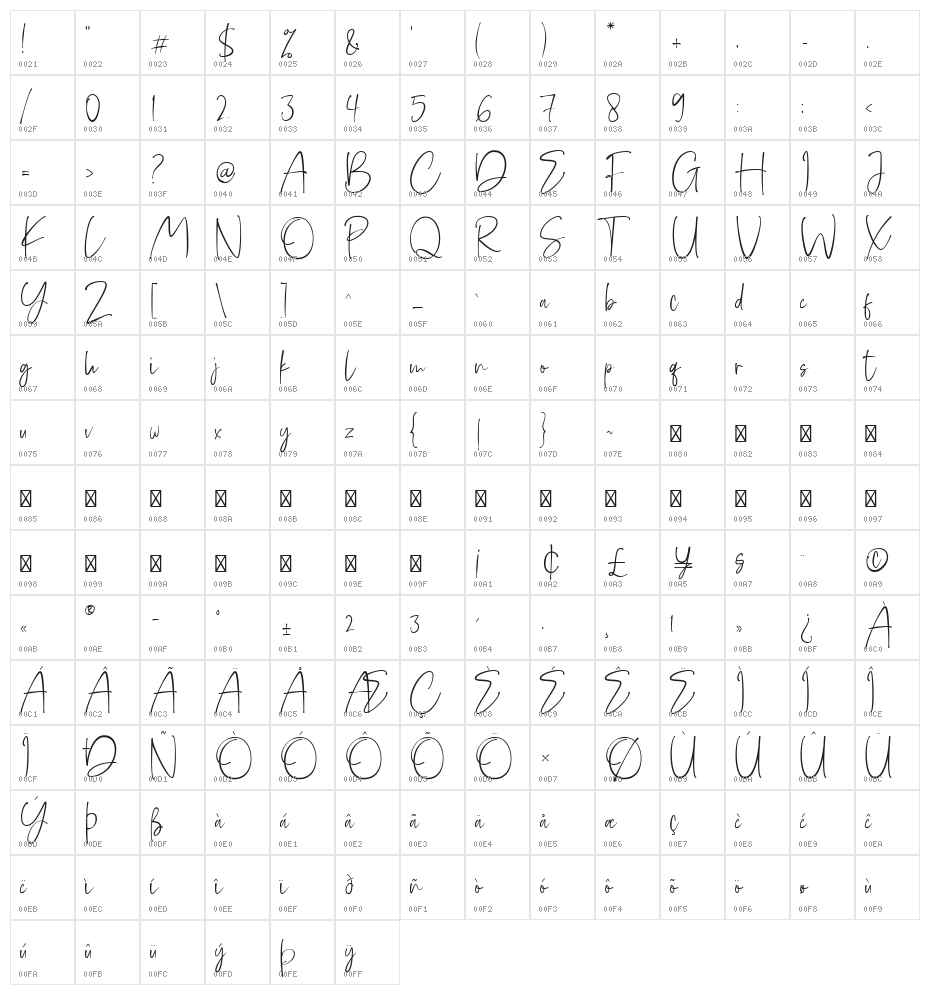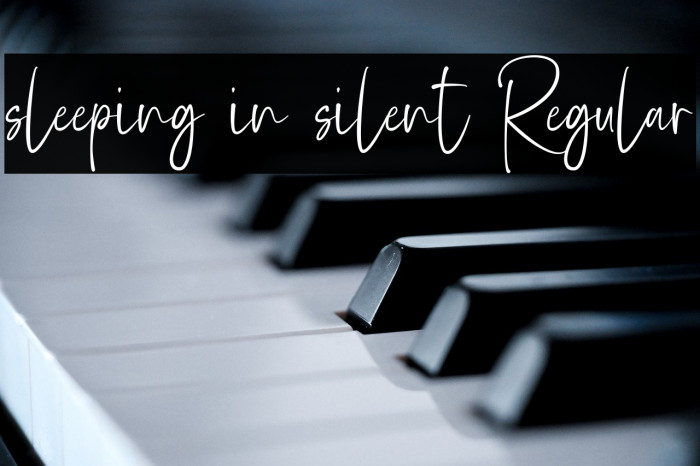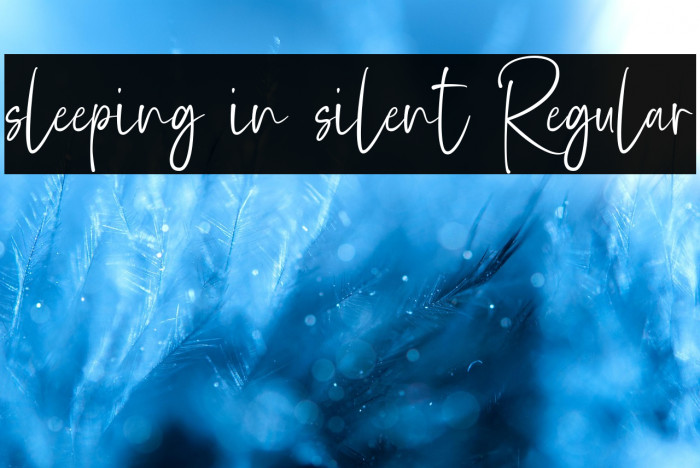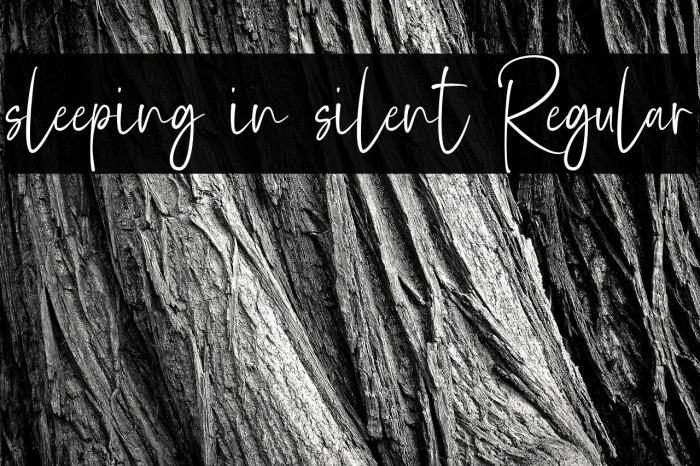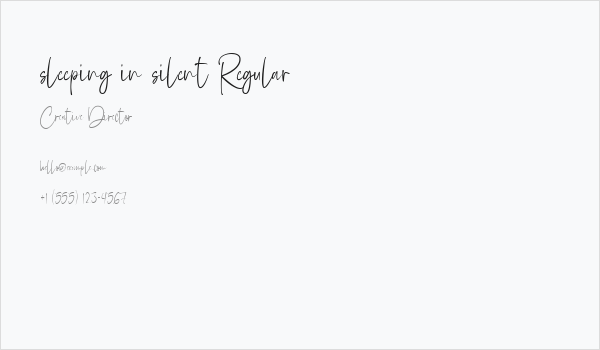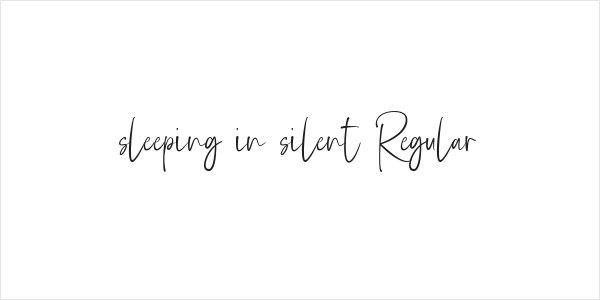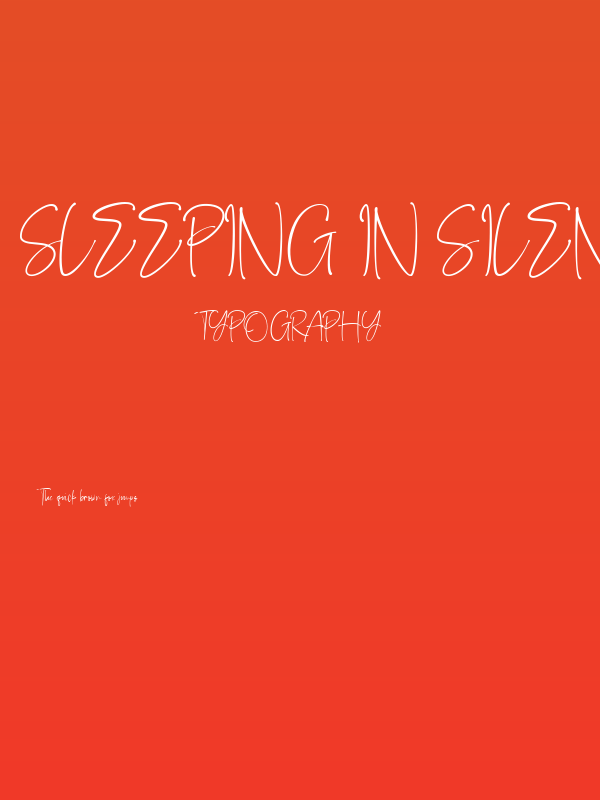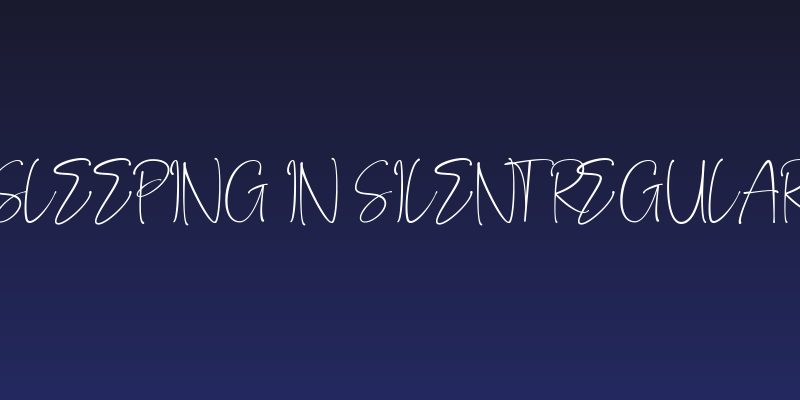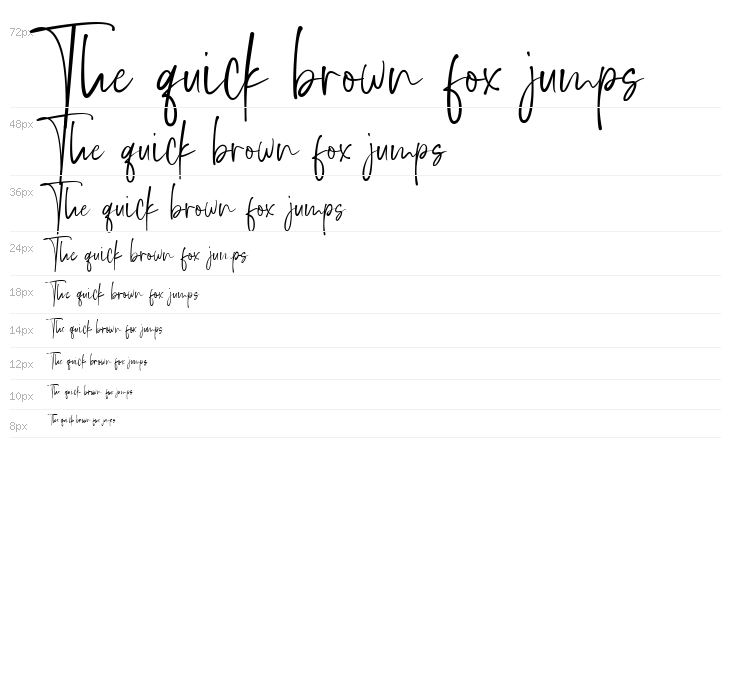
sleeping in silent Regular Font
sleeping in silent Regular Description
This font features a whimsical and flowing handwritten style, characterized by its elongated and slightly irregular letterforms. The uppercase letters exhibit a playful yet elegant appearance, with smooth curves and a consistent stroke weight. The lowercase letters maintain a similar aesthetic, offering a cohesive look throughout. Numbers and special characters are crafted with the same attention to detail, ensuring readability while maintaining the font's unique charm. The overall design is airy and light, making it suitable for projects that require a personal and informal touch.